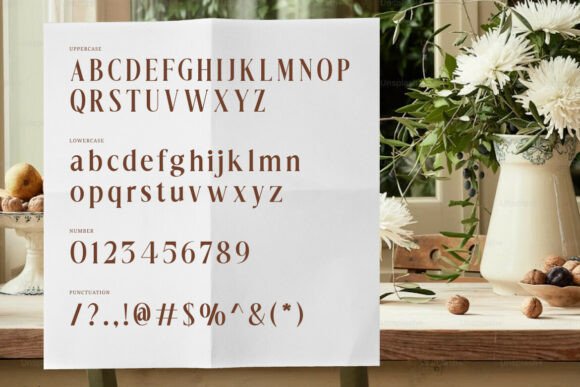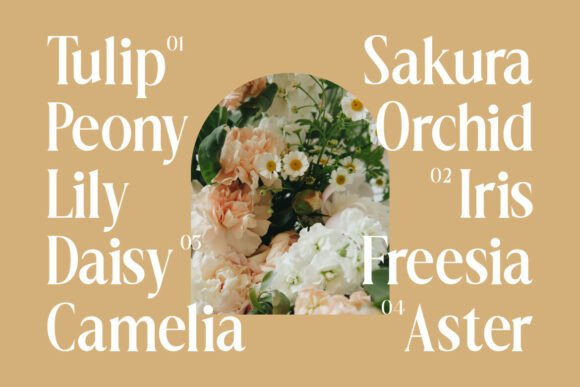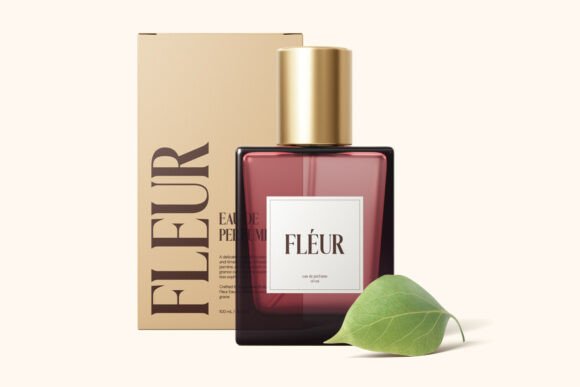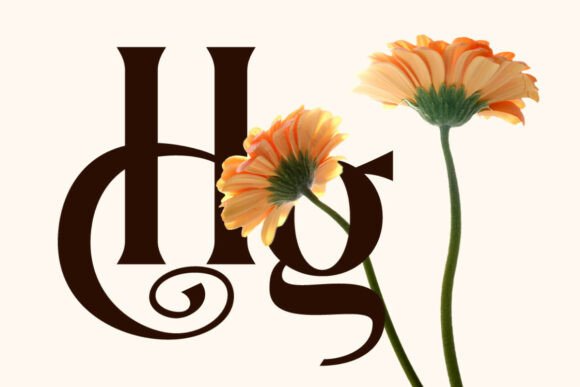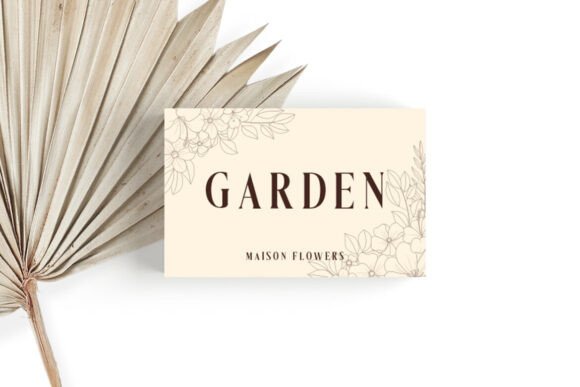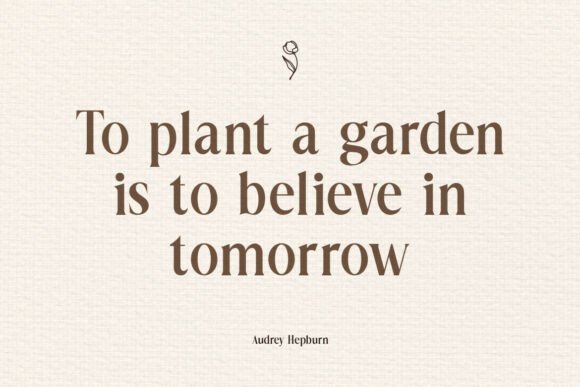
Introduction to Dionara Font
Dionara is a refined and graceful serif typeface that blends modern luxury with timeless sophistication.
Featuring distinctive high-contrast strokes and elegant curvatures, Dionara radiates style and confidence Its decorative swirls and balanced proportions make it ideal for branding, editorial layouts, fashion designs, and high-end packaging.